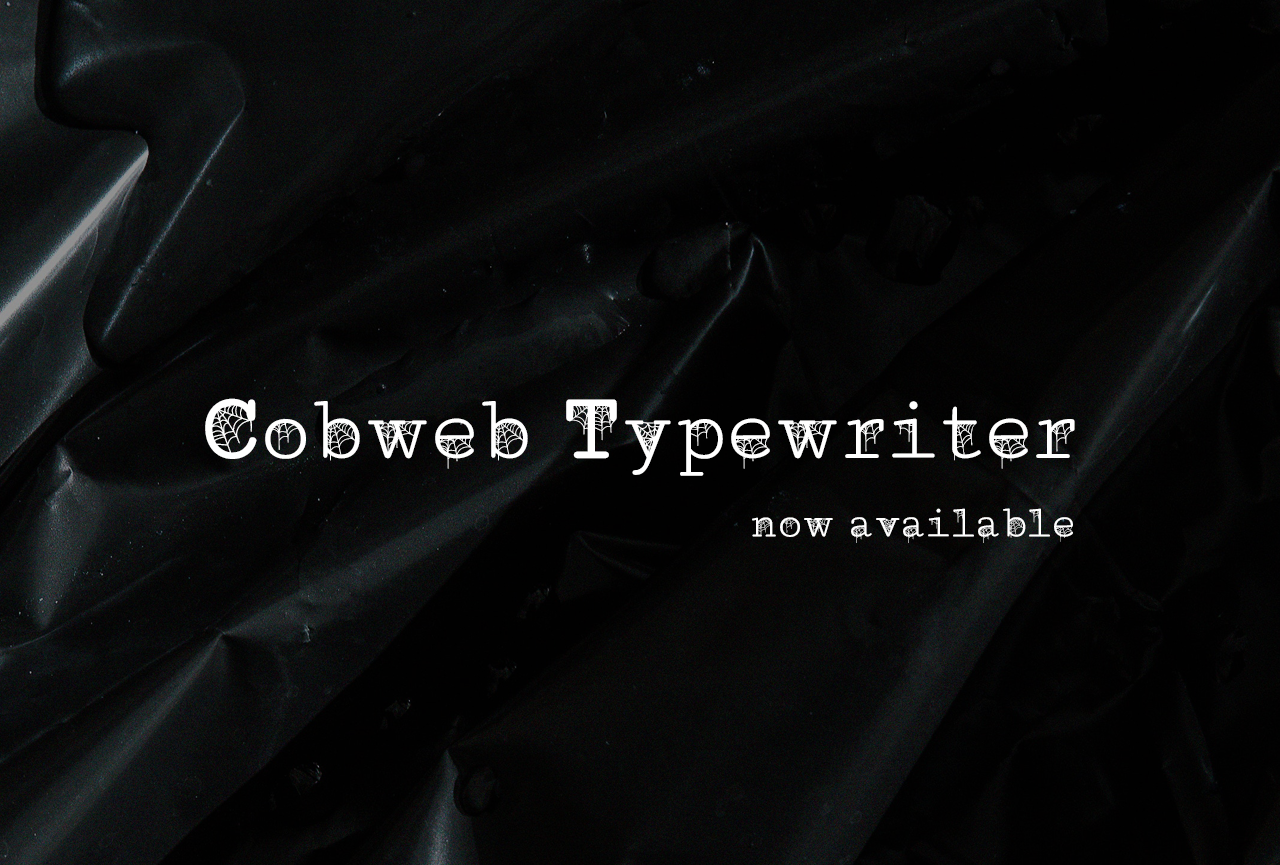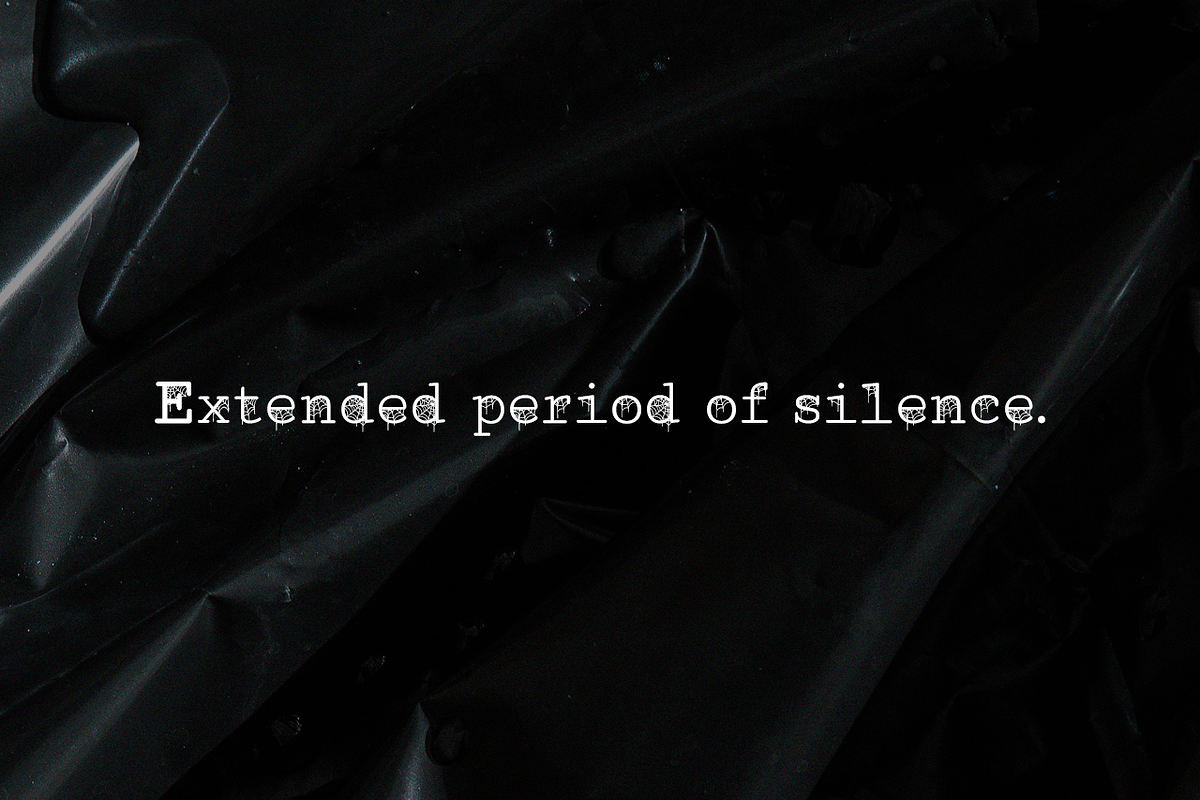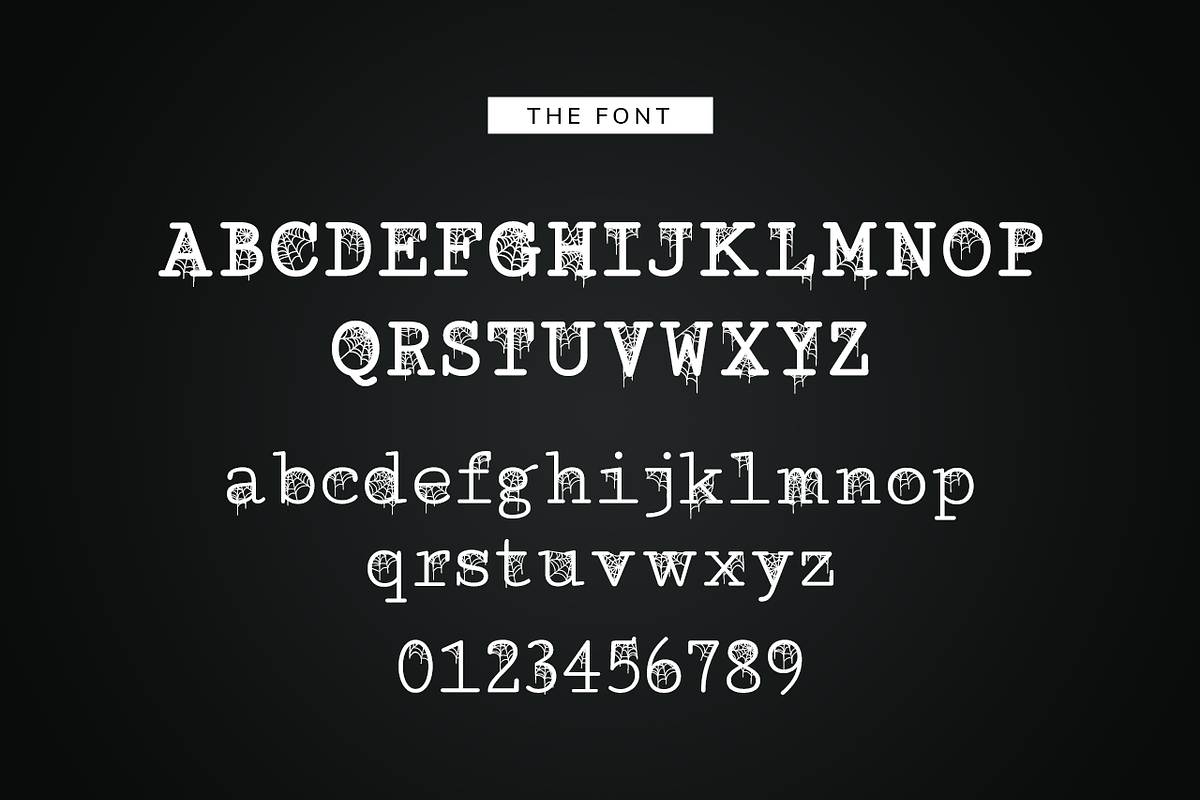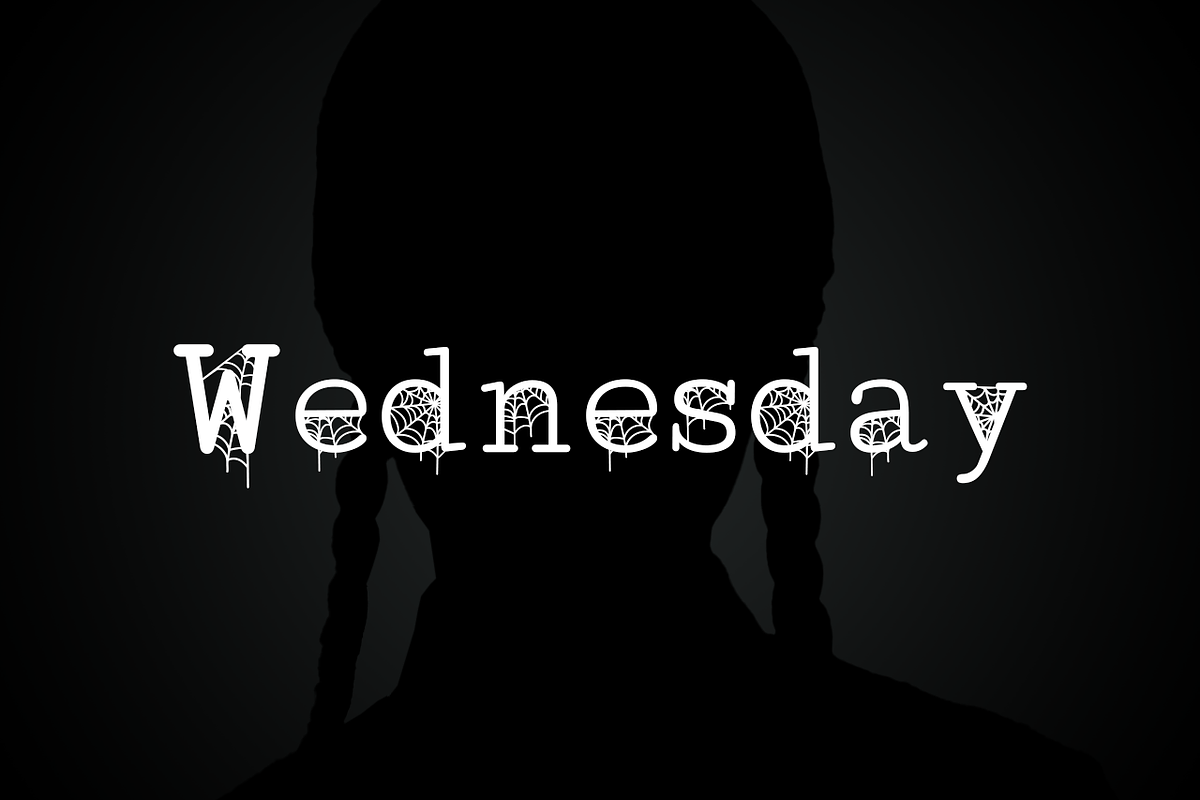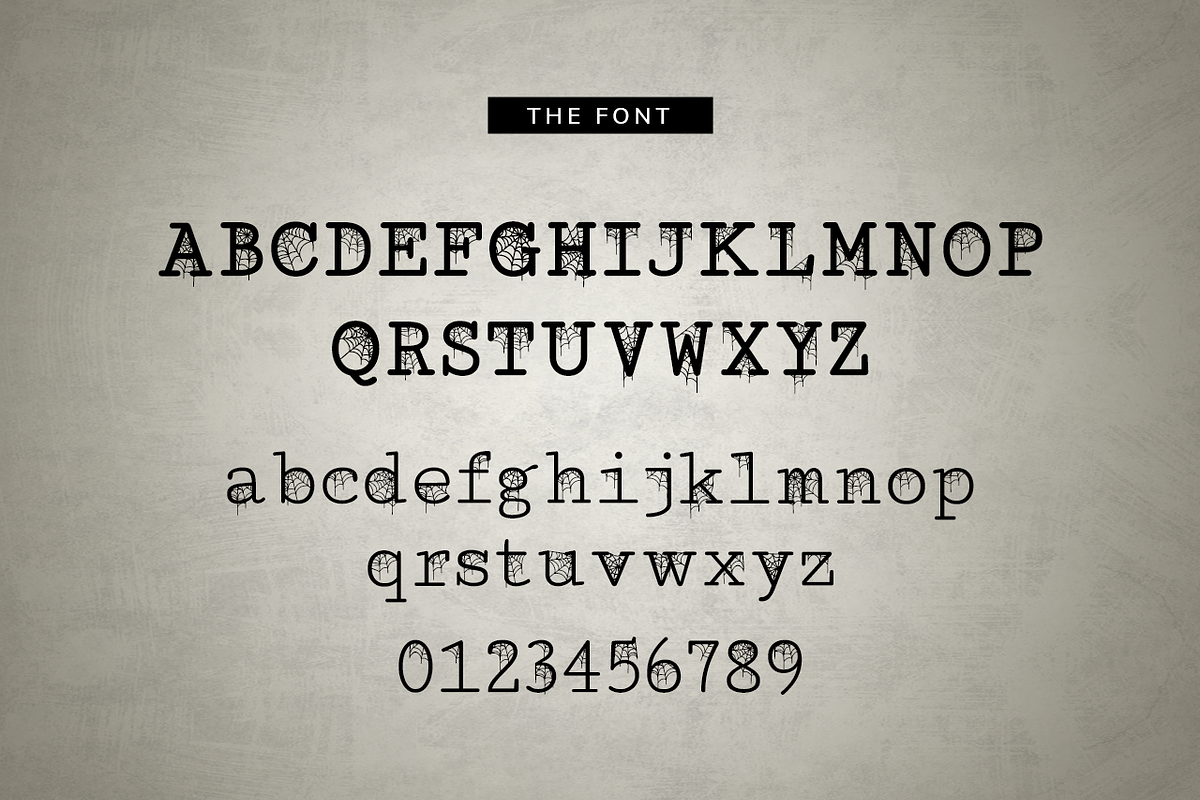
Cobweb Typewriter Font
Cobweb Typewriter
Cobweb Typewriter is a cobweb display font. A favorite for Halloween, inspired by old book covers from when I was a kid. Bring a little bit of nostalgia into your projects and inspire that one-of-a-kind creepy vibe.
Font includes upper and lowercase versions. Great for logos, type, headlines, clothing, covers, & posters.